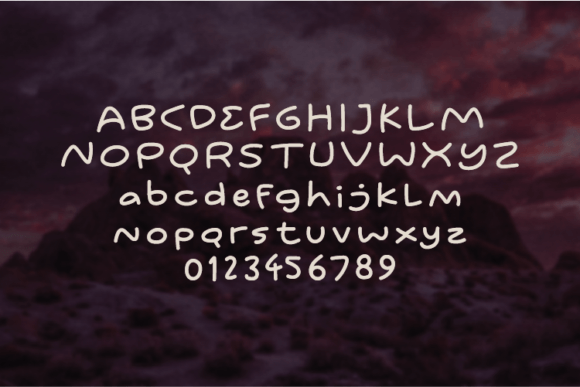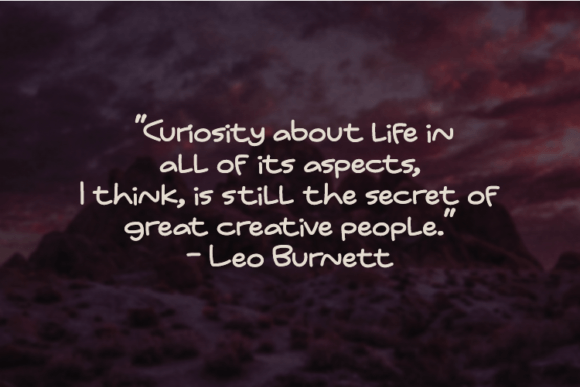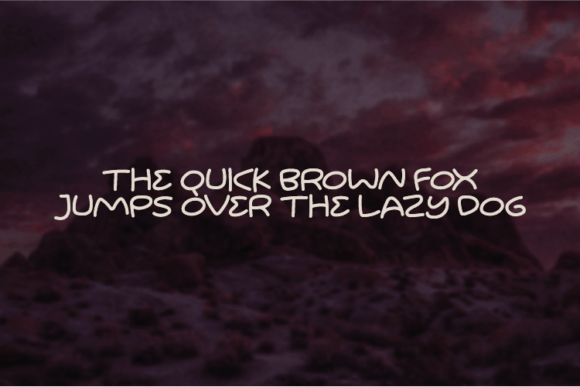
Introduction to Naturale Font
Have you ever found yourself stuck in a creative rut, desperately searching for the perfect design element to bring your project to life? I know I have. For me, it was a free download of the Naturale Font that finally sparked the creativity I was missing. Its unique, handwritten style instantly captured my attention and became the perfect addition to my design library.
As a valuable design resource, the Naturale Font is an excellent choice for any creative project. Its high quality and versatility make it an ideal asset for designers seeking to add a personal touch to their work. With its transparent background, this font can seamlessly integrate into any design, making it a must-have for any serious design enthusiast.
Whether you’re a seasoned pro or just starting out, the Naturale Font is a game-changer. Its potential to elevate any creation is undeniable, making it a worthwhile addition to your design arsenal.
Key Features of Naturale Font
- High-quality vector font designed for creative projects, ideal for branding and design work.
- Unique characteristic: Elegant and sophisticated design, perfect for creating a professional and modern look in any creative project.
Honest Review: Naturale Font
I recently stumbled upon the Naturale Font and I’m excited to share my thoughts with you. As a designer, I’m always on the lookout for high-quality design resources that can elevate my creative projects. The Naturale Font definitely fits the bill.
Here’s what I love about the Naturale Font: ✨ It’s a beautiful, elegant font that works perfectly for both print and digital designs. ✨ The font is highly customizable, allowing you to adjust the size, color, and style to suit your needs. ✨ The transparent background makes it easy to use as a overlay or a texture in your designs.
Here are some key features that make the Naturale Font a valuable design resource:
- High-quality design that looks great in print and digital formats
- Customizable size, color, and style options
- Transparent background for easy overlay or texture use
However, there are a few limitations to keep in mind: ⚠️ The font is not as extensive as some other font families, with only a limited number of styles and weights available. ⚠️ The font may not be suitable for very large-scale designs, as it can become pixelated or blurry at high resolutions.
Overall, I’m impressed with the Naturale Font and would highly recommend it to designers looking for a high-quality, elegant font for their creative projects.
Naturale Font
The Naturale Font is a high-quality design resource available for free download. This versatile font can be used in a variety of creative projects, from logos to marketing materials.
Tips for Getting the Most Out of Naturale Font
To get the most out of the Naturale Font, experiment with different font sizes, colors, and combinations. This will help you find the perfect balance for your design.
The Naturale Font is ideal for use in creative projects, such as:
- Logos and branding materials
- Marketing materials, such as brochures and flyers
- Presentations and reports
- Website and social media graphics